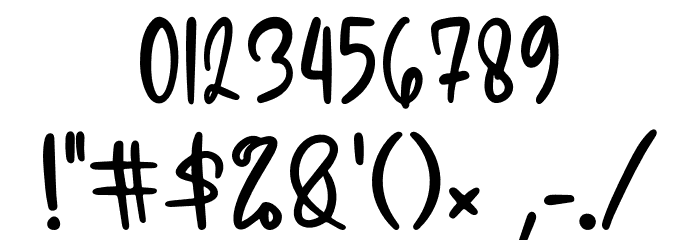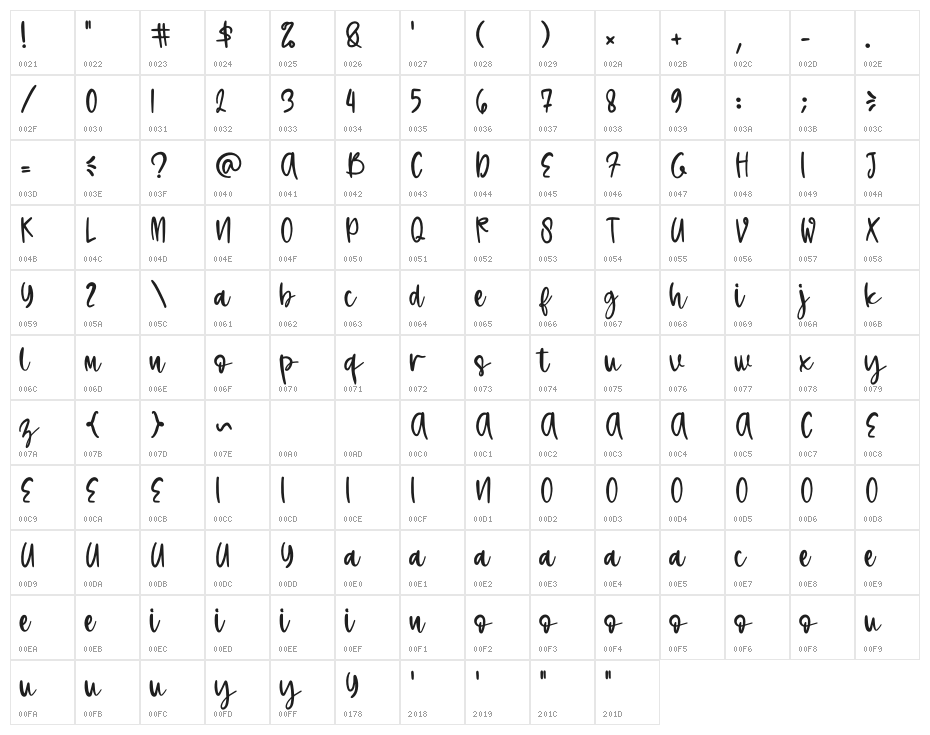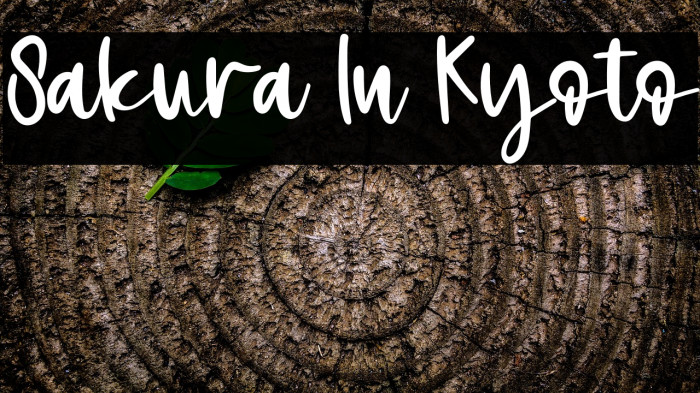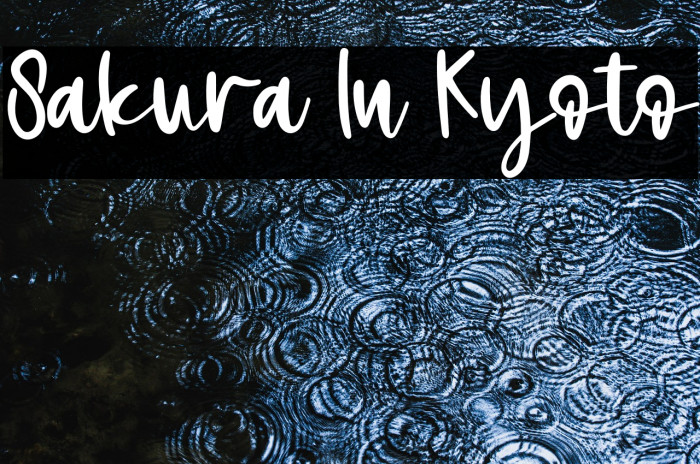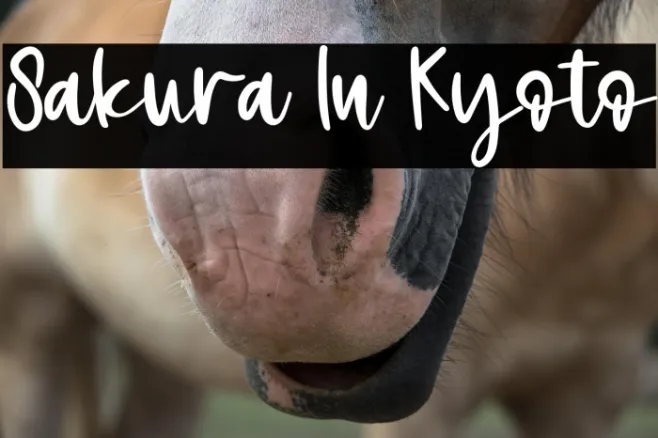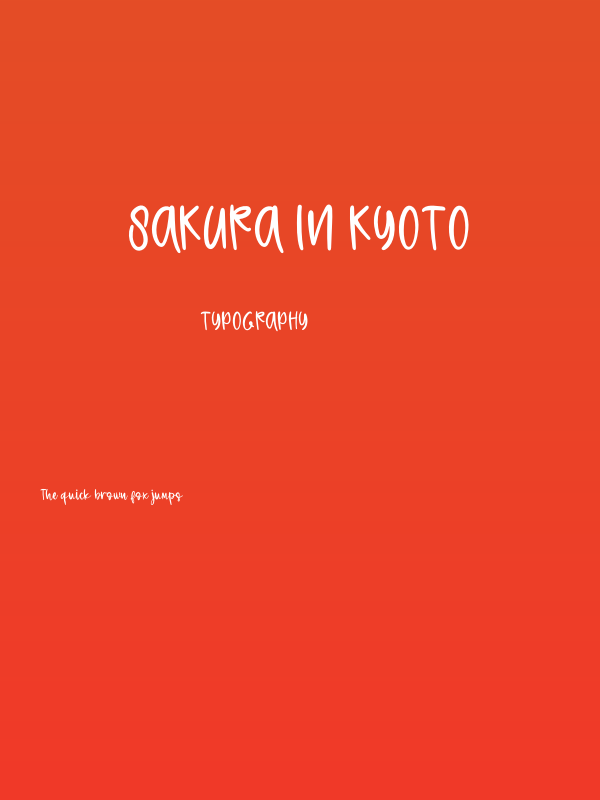
Sakura In Kyoto Font
Sakura In Kyoto Description
This font features a playful and expressive handwritten style, characterized by its bold and flowing strokes. The letters have a casual yet artistic appearance, with varying thickness that adds a dynamic feel. The uppercase letters are tall and slightly narrow, while the lowercase letters maintain a consistent flow with loops and curves that enhance its handwritten charm. The numbers and special characters follow the same lively and informal style, making it suitable for creative and personal projects. The overall look is both modern and approachable, perfect for adding a personal touch to any design.
| Overall Style | Modern, Decorative |
| Use Case | Headlines, Logos, Invitations |
| Proposed Projects | Ideal for greeting cards, invitations, personal branding, social media graphics, and creative projects. |